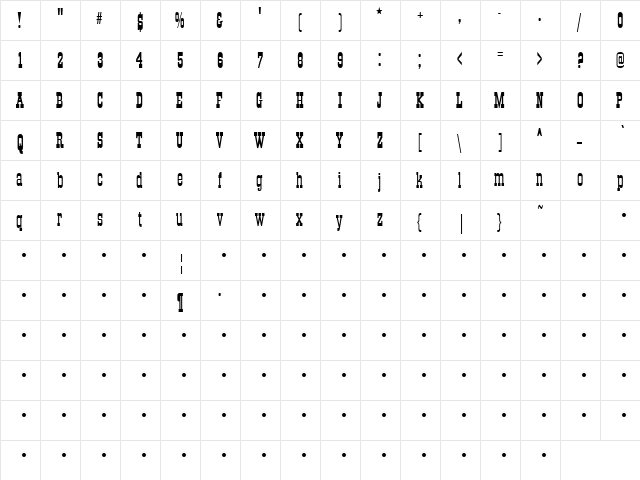
All Night 11 Regular
Design Context for All Night 11 Typeface
All Night 11 takes a measured approach to typography — its balanced proportions and neutral character make it a reliable workhorse for both digital and print work.